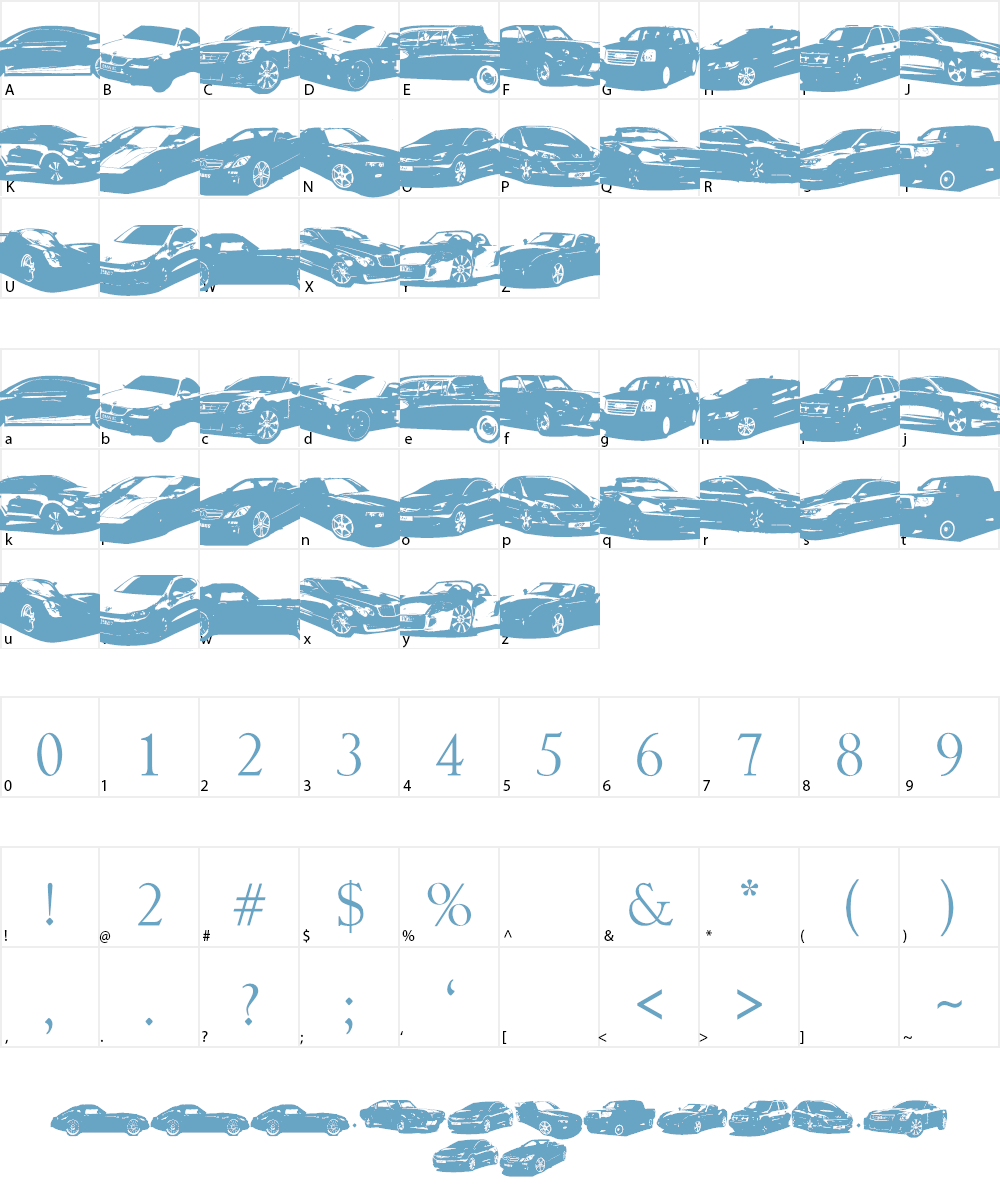
Famous Cars Font is produced by http://FontIneed.com and it is dedicated to some of the most famous cars (http://articles.famouswhy.com/category/automotive/) in the world (each letter corresponds to a car brand or model).
Here's the list of corresponding cars to each letter:
A - Audi R8
B - BMW M5
C - Cadillac XLR Roadster
D - Dodge Challenger
E - Edsel Pacer
F - Ford Mustang GT 390
G - GMC Yukon
H - Honda CR-Z
I - Isuzu Ascender
J - Jaguar XFR
K - Kia Sportage
L - Lamborghini Gallardo GTS
M - Mercedes-Benz E-Class
N - Nissan Skyline GT-R
O - Opel Astra GTC
P - Peugeot 407
Q - Qvale Mangusta
R - Renault Fluence
S - Subaru Impreza WRX
T - Toyota Tacoma
U - Ultima GTR 720
V - Volkswagen Scirocco
W - Wiesmann Roadster MF3
X - Xenatec Maybach Cruiserio
Y - Yes! Roadster 3.2
Z - Zagato Ferrari